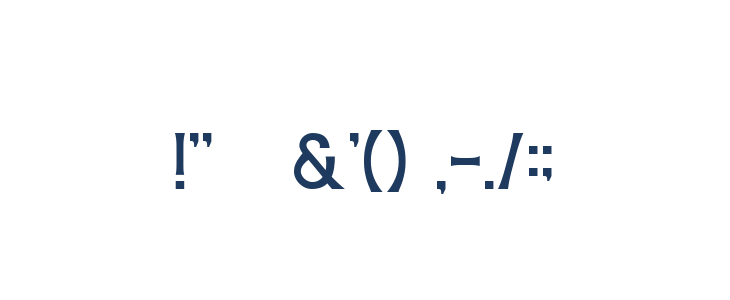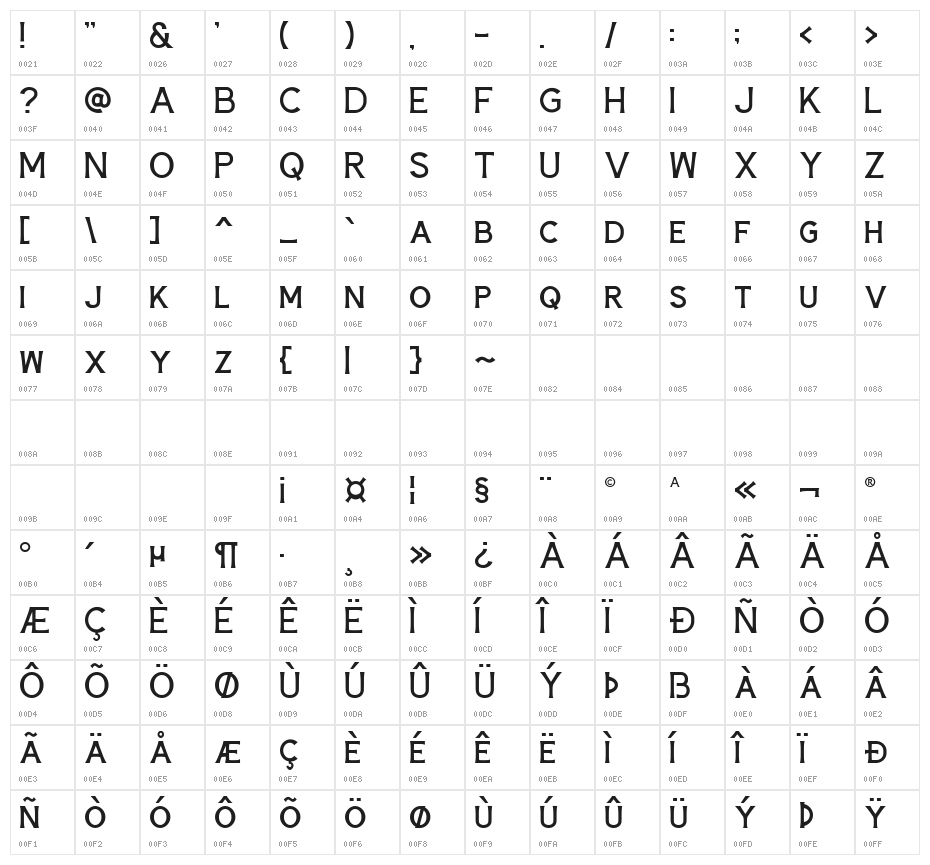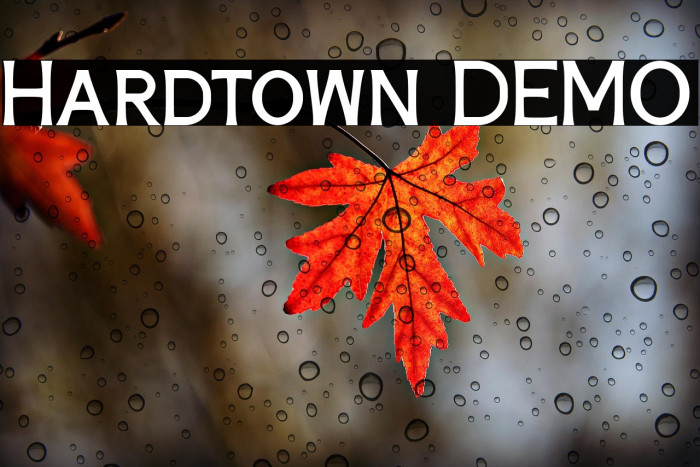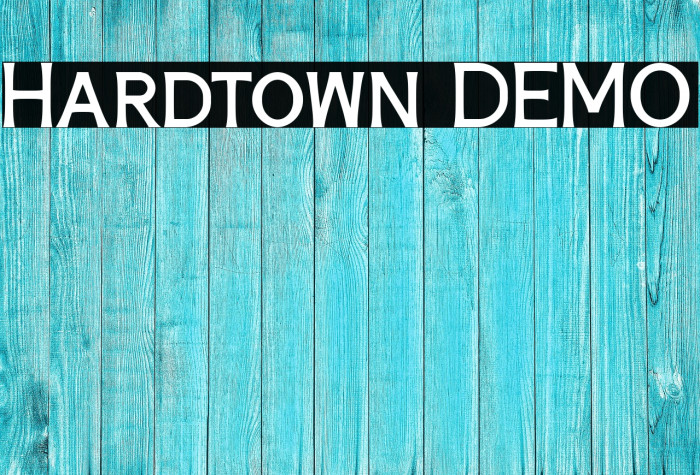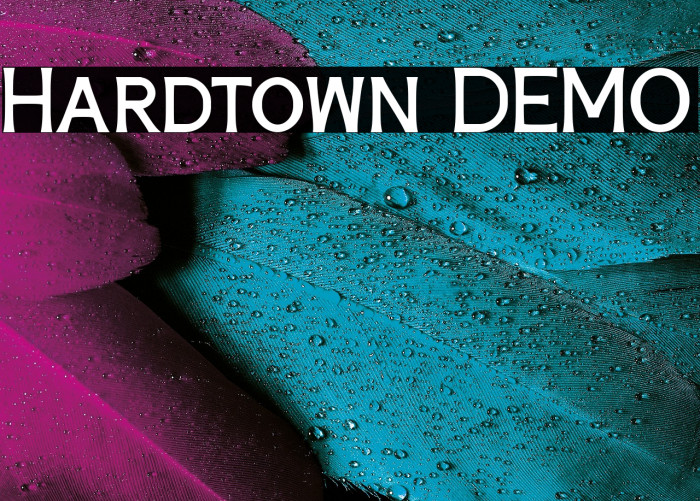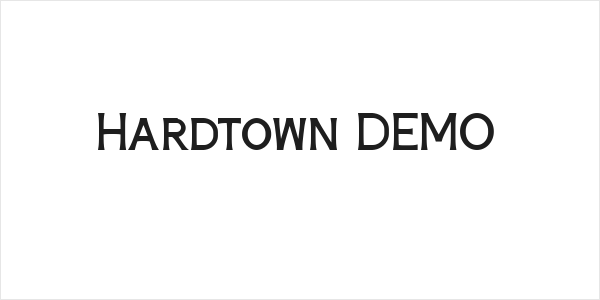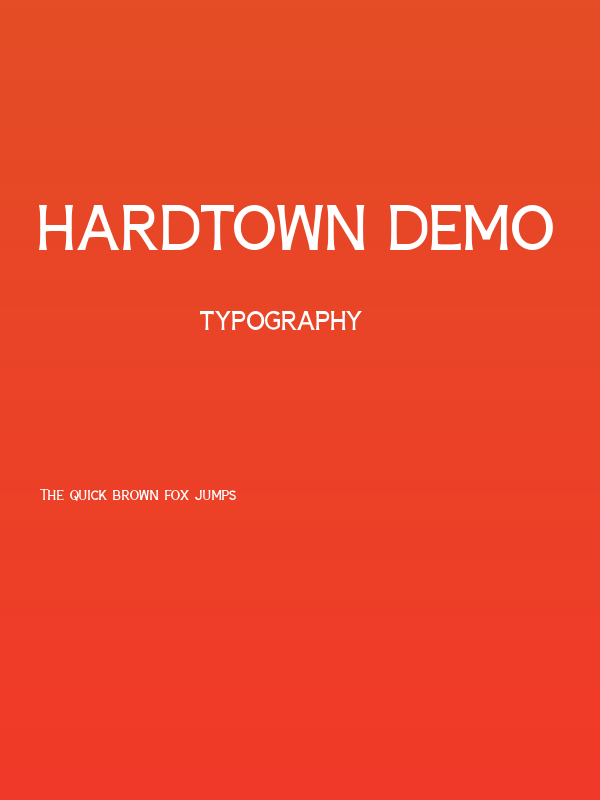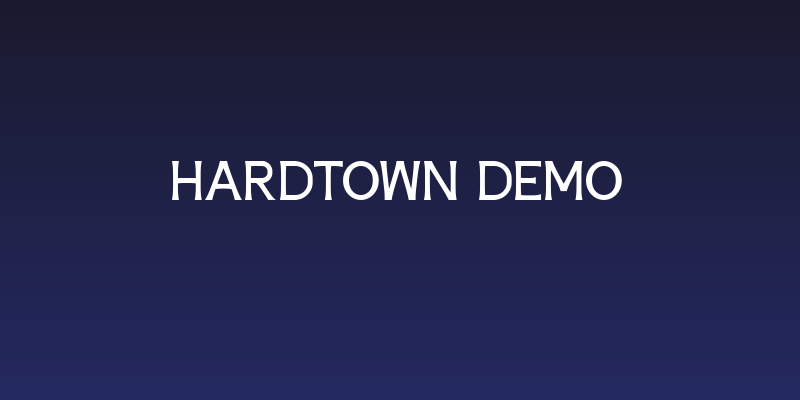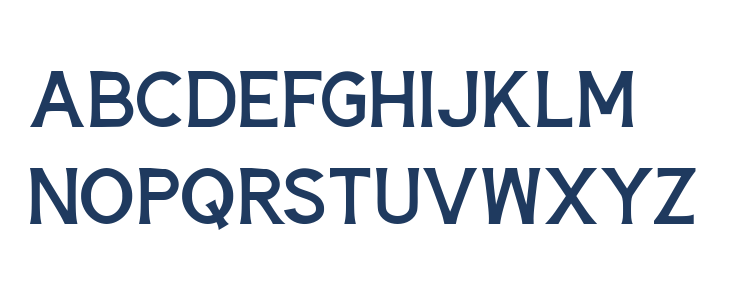
Hardtown DEMO Font
Hardtown DEMO Description
This font features a bold and assertive style, characterized by its strong geometric shapes and clean lines. The uppercase letters are uniform in height, creating a balanced and cohesive appearance. The strokes are consistent in width, contributing to a modern and structured look. The font's design is straightforward yet impactful, making it suitable for various applications where clarity and emphasis are needed. The special characters maintain the same boldness, ensuring they integrate seamlessly with the alphabetic characters.
| Proposed Projects | Ideal for branding, headlines, posters, and any design requiring a strong visual impact. |